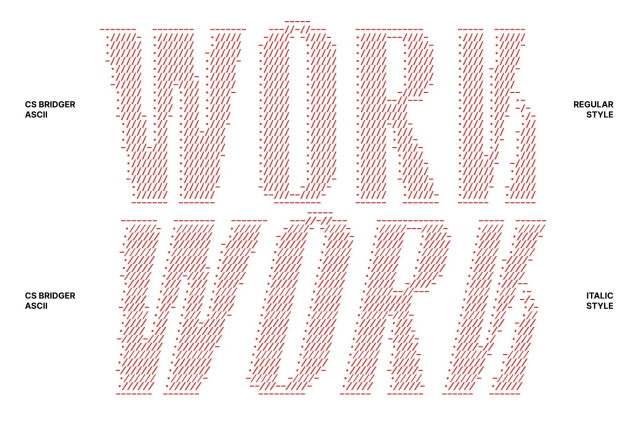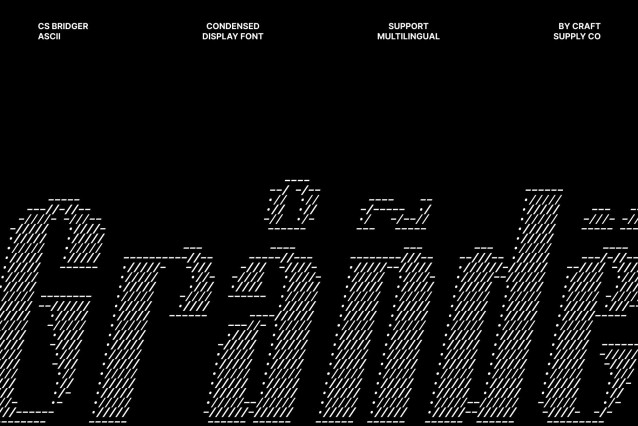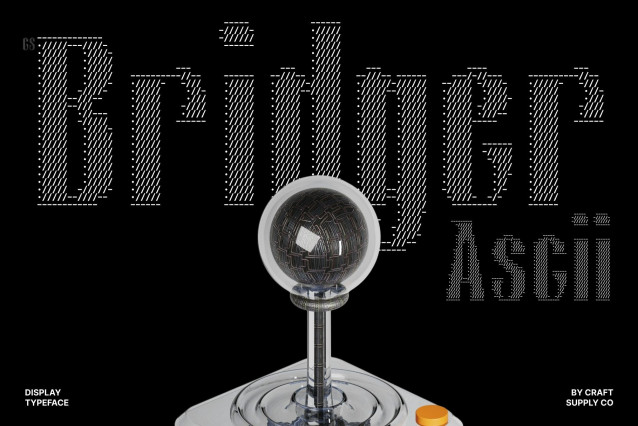
CS Bridger Ascii Font
CS Bridger Ascii – Bold Sans Serif Font: Compact Strength in ASCII Form
Strong and Assertive Design Reimagined in ASCII
This transforms the confident structure of a bold condensed sans serif into a striking ASCII-driven display font. Each character is constructed from carefully arranged symbols, turning text into a powerful visual composition that immediately commands attention.
Efficient Design with Professional Authority
Built for space-saving efficiency, this font maximizes readability without sacrificing personality. Its compact letterforms allow designers to fit more information into tighter layouts, making it perfect for posters, banners, packaging, and editorial headlines. The ASCII construction adds a modern technological texture that reinforces its professional tone, giving the font a clean and organized aesthetic that feels confident and contemporary.